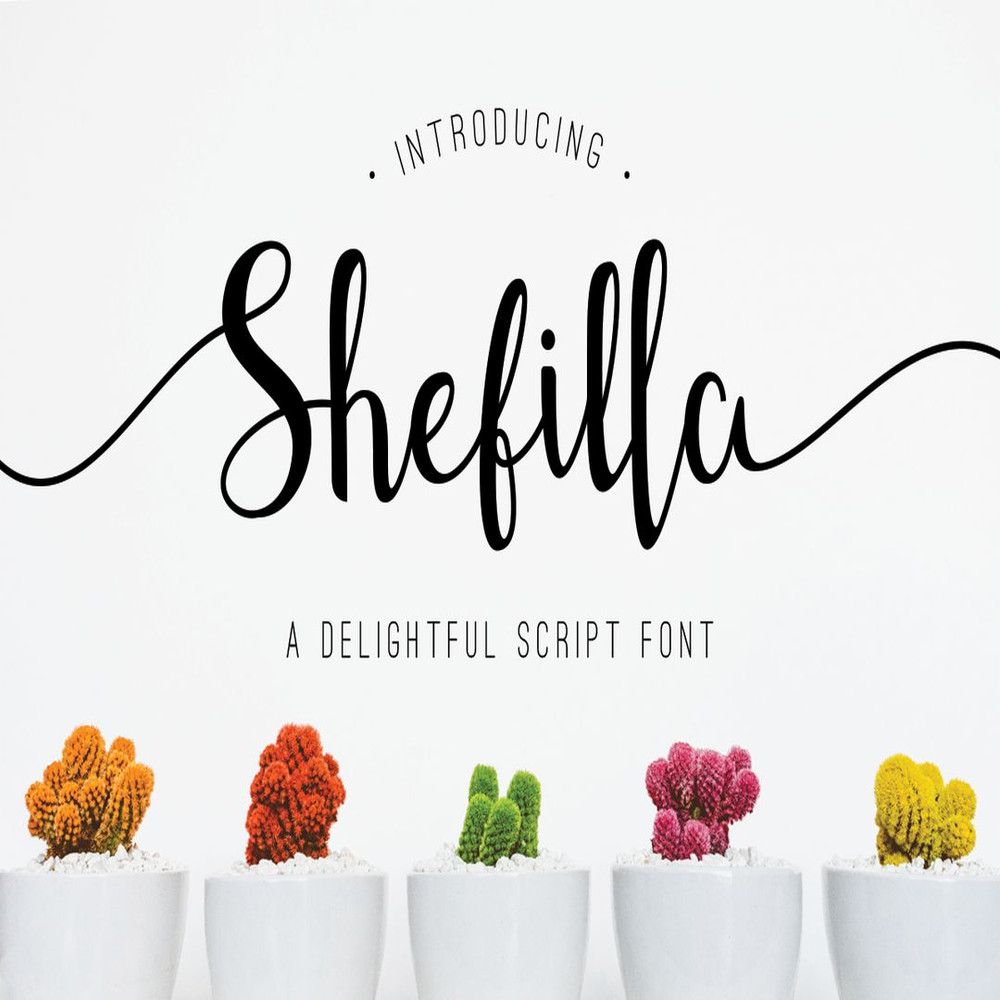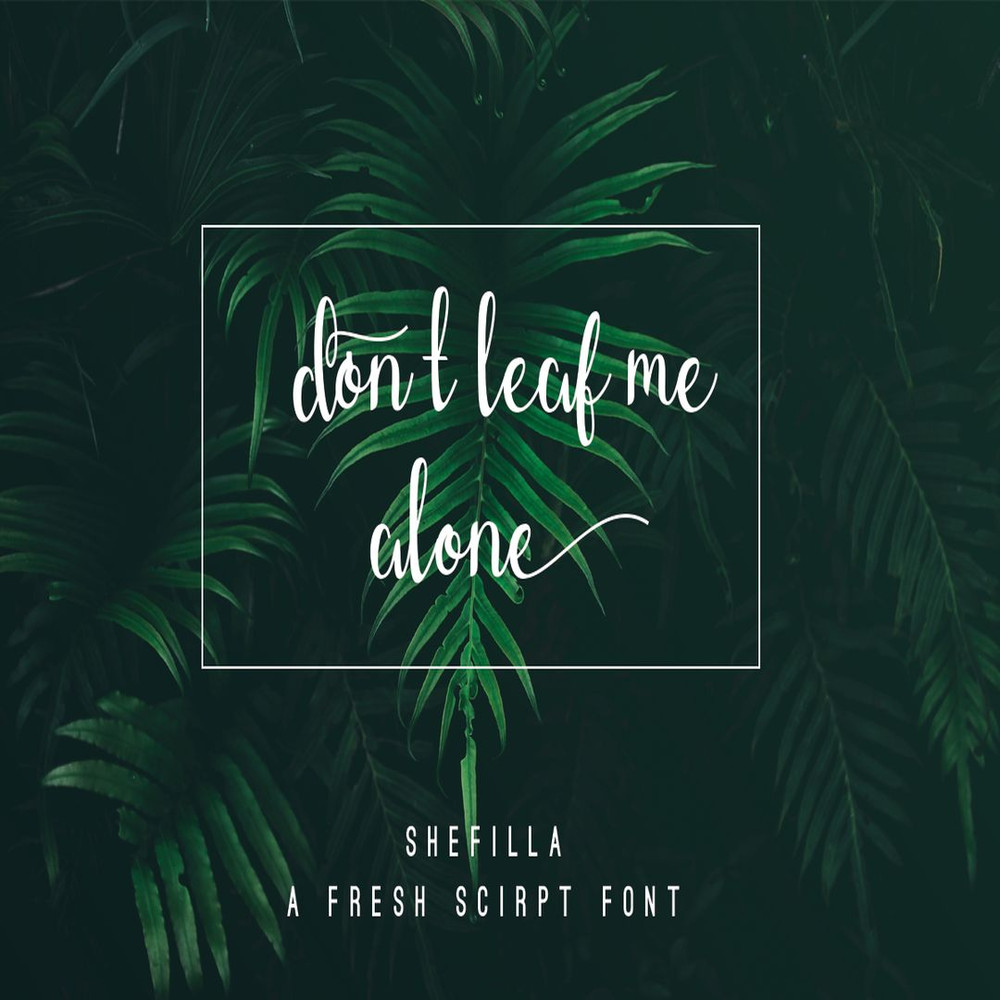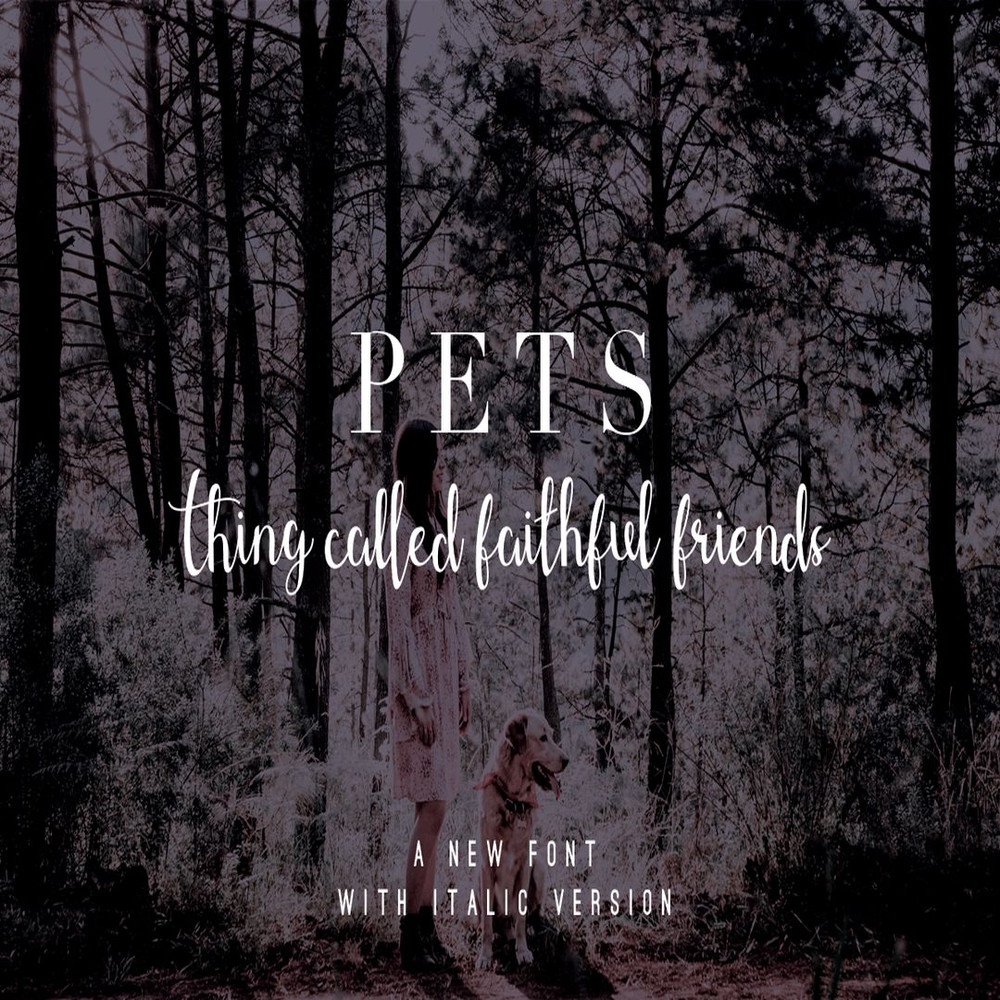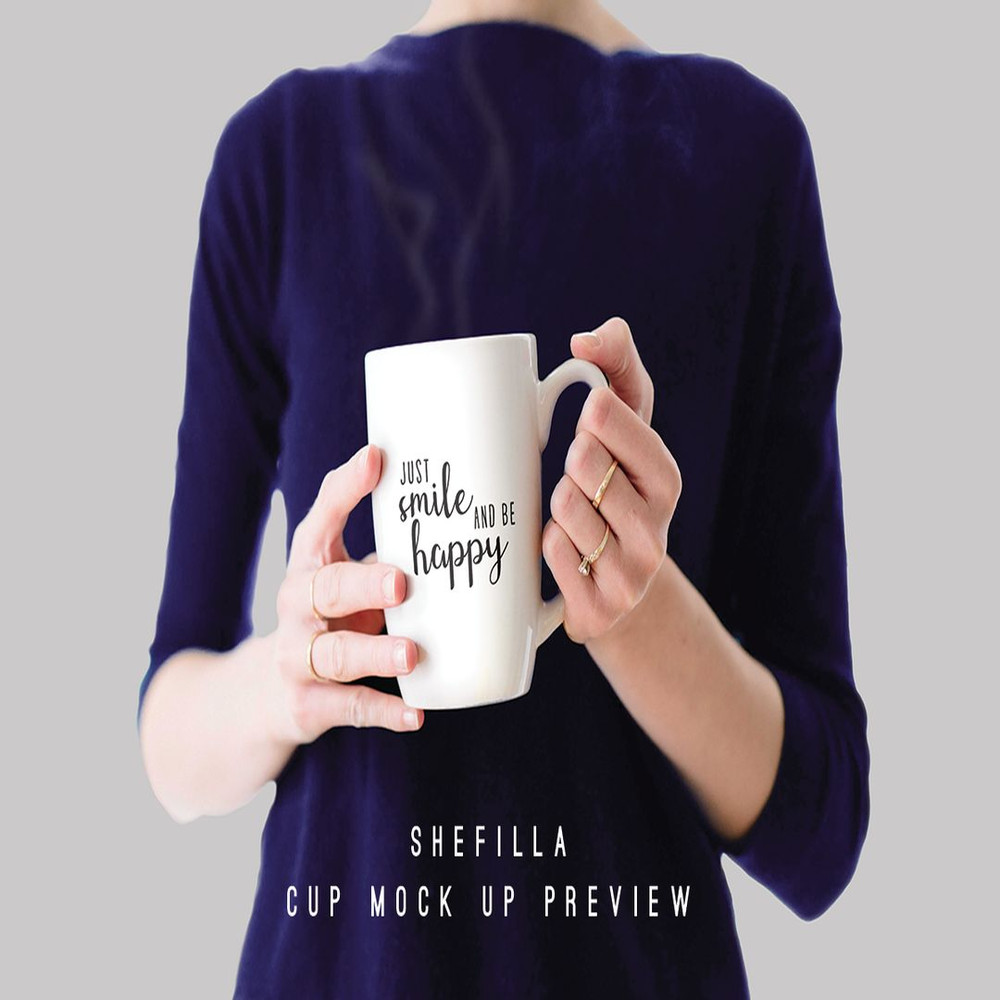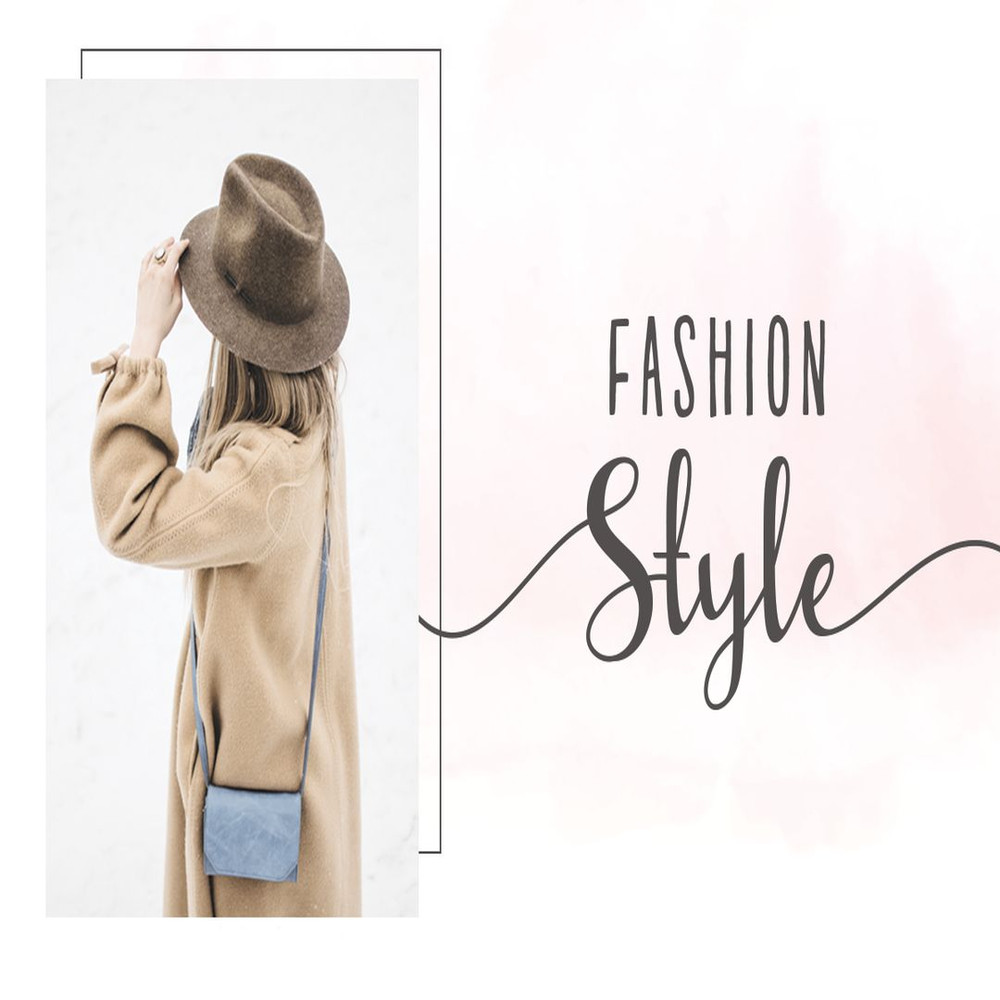
Shefilla was built with Italic version, OpenType features and includes ending swashes, numbers, punctuation, alternates, ligatures and supports other languages
Shefilla Script Font – a new modern & fresh script with a handwritten and script style make this font looks elegant, natural, stylish and perfect for any awesome projects that need handwriting taste.
Shefilla would perfect for photography, watermark, social media posts, advertisements, logos & branding, invitation, product designs, label, stationery, wedding designs, product packaging, special events or anything that need handwriting taste.